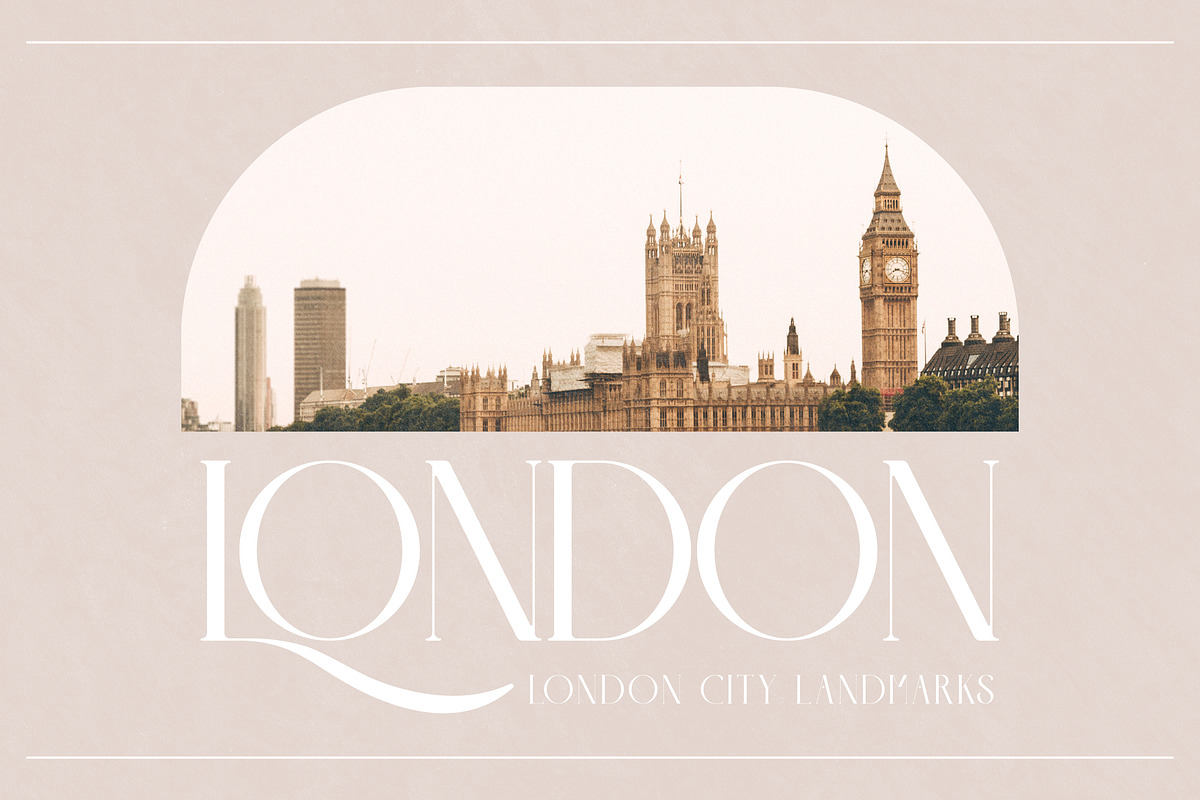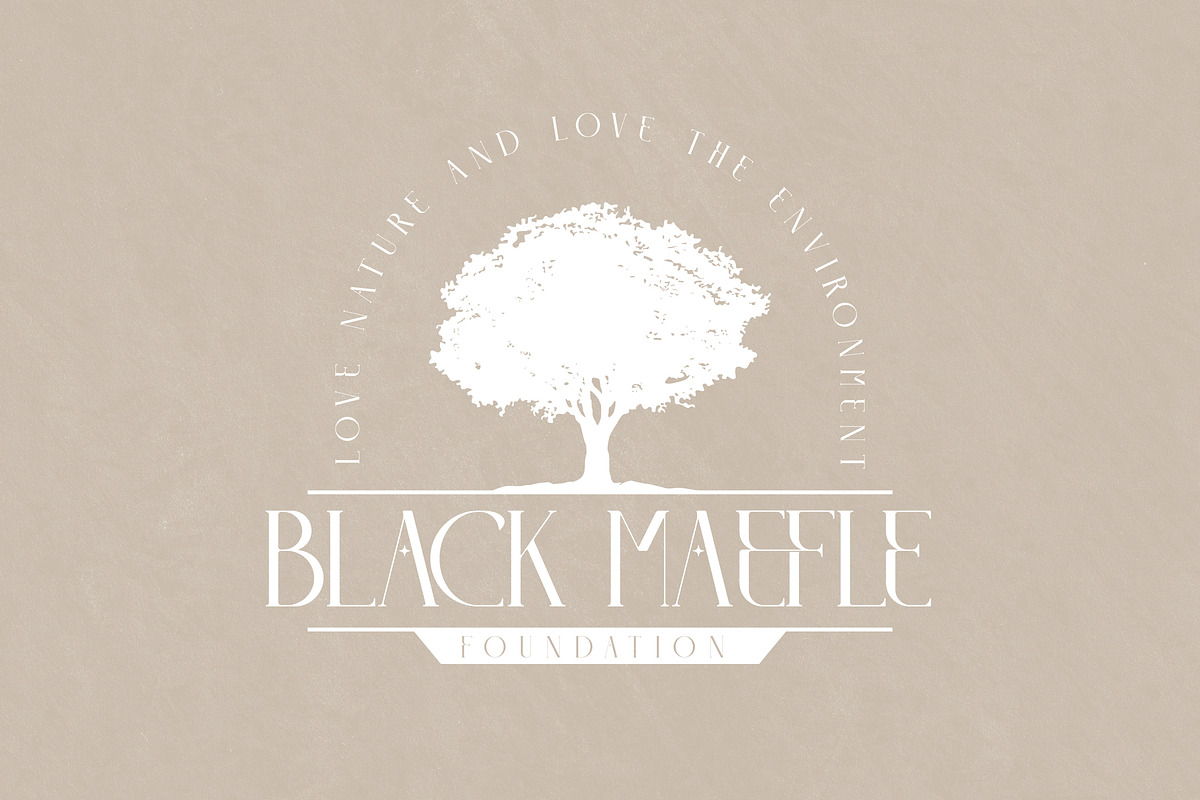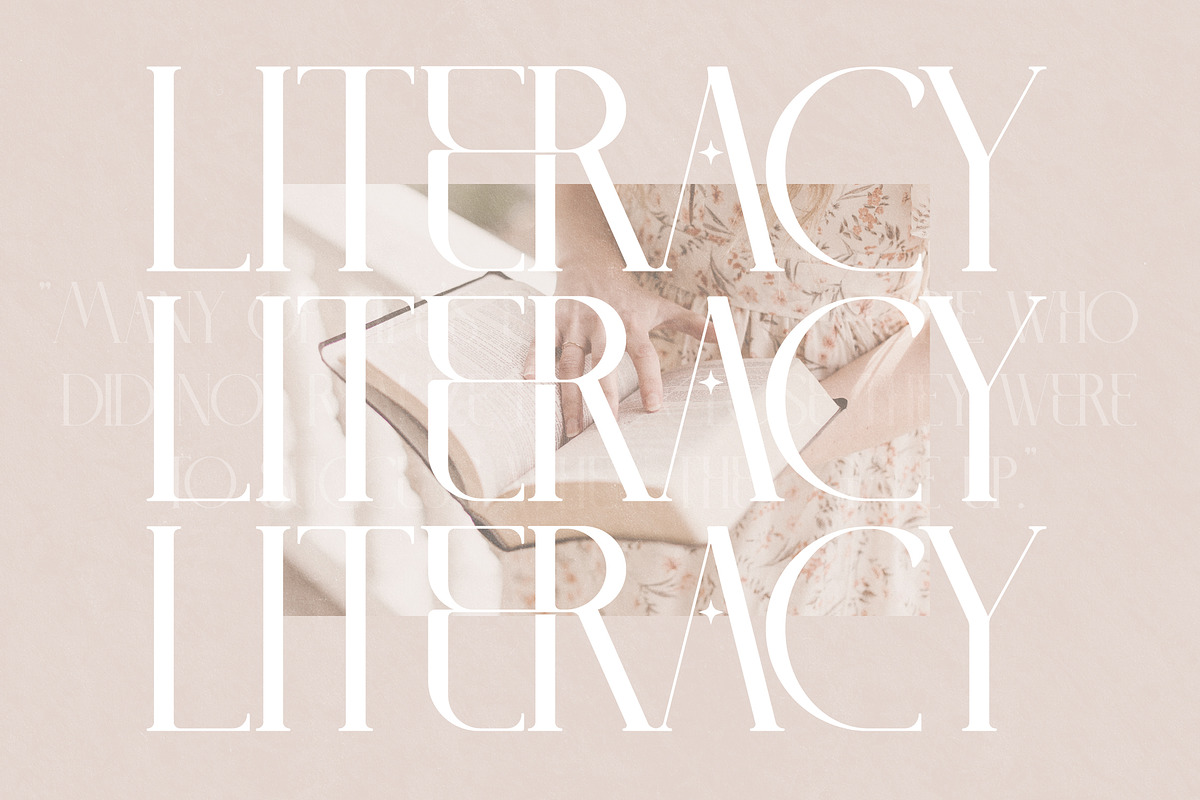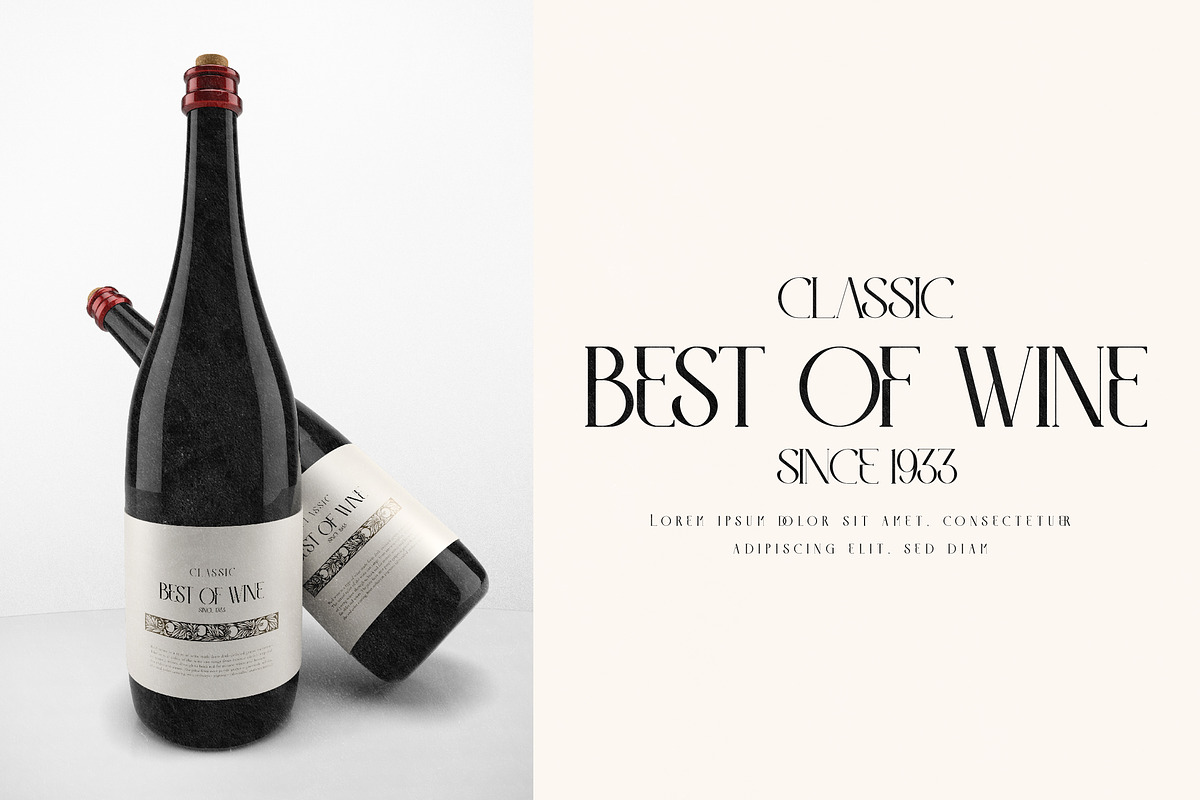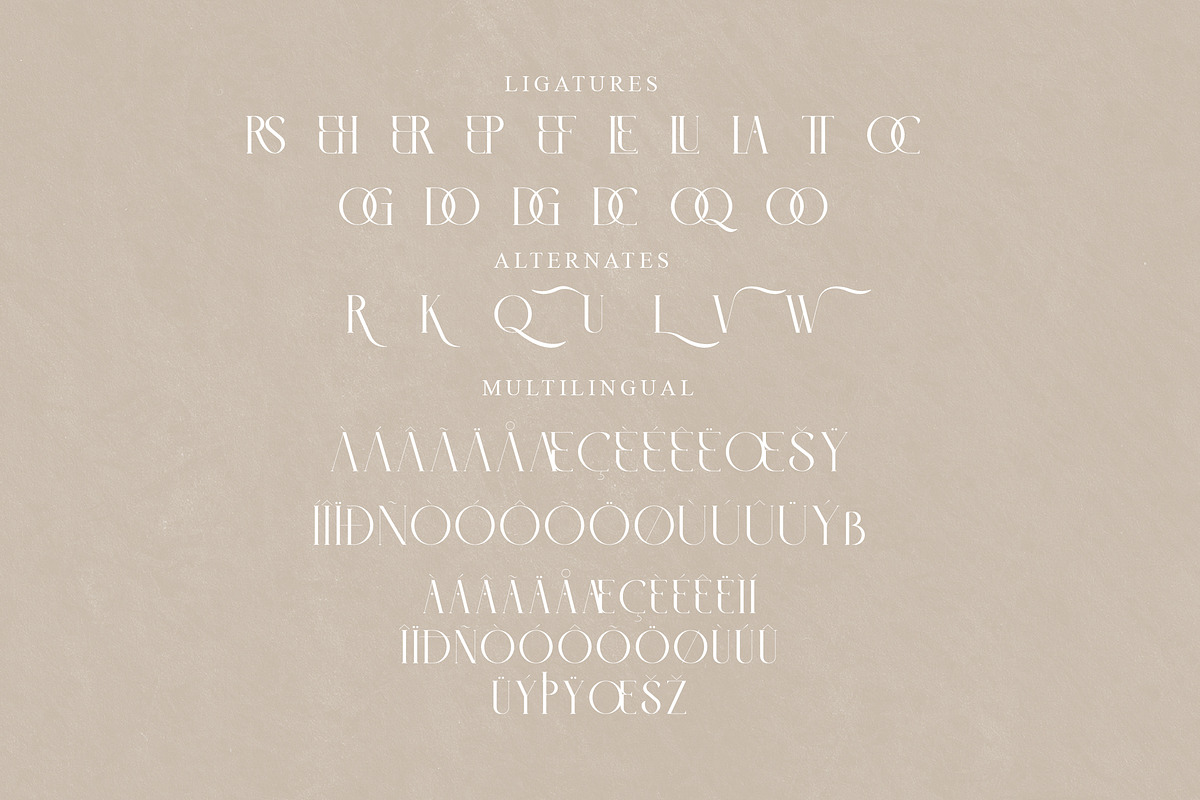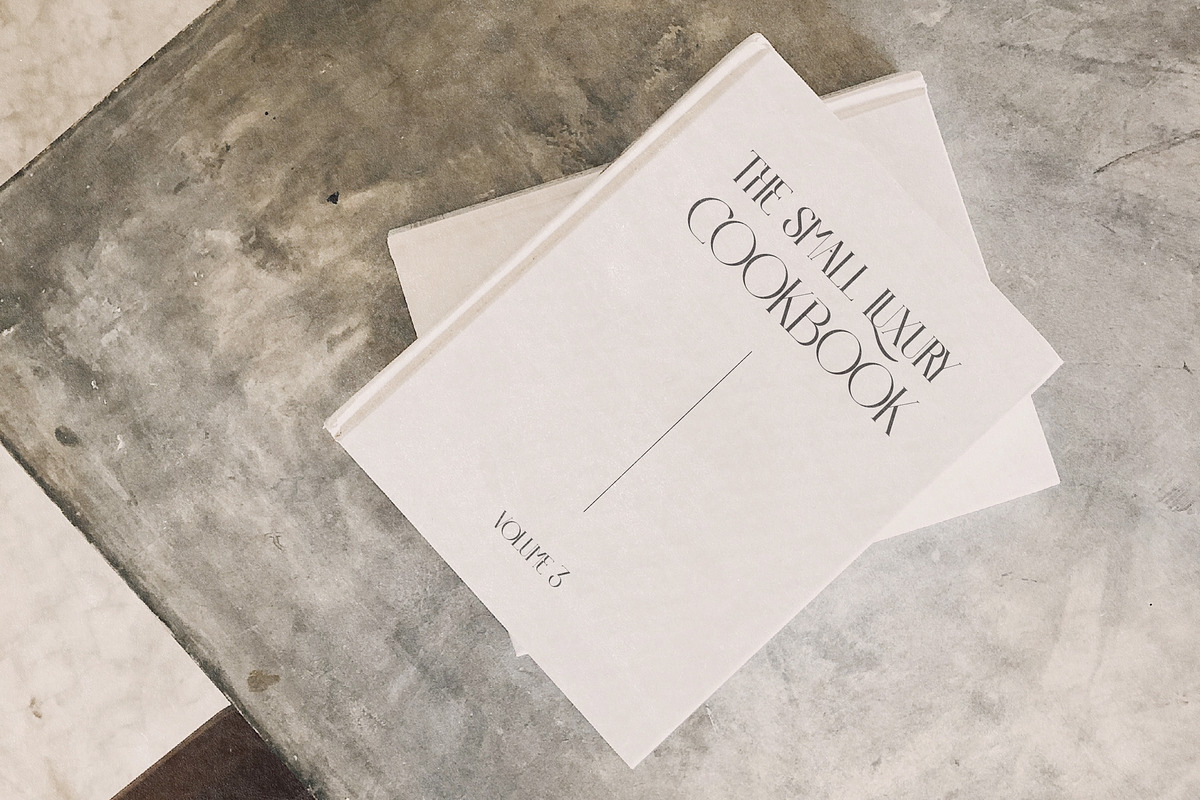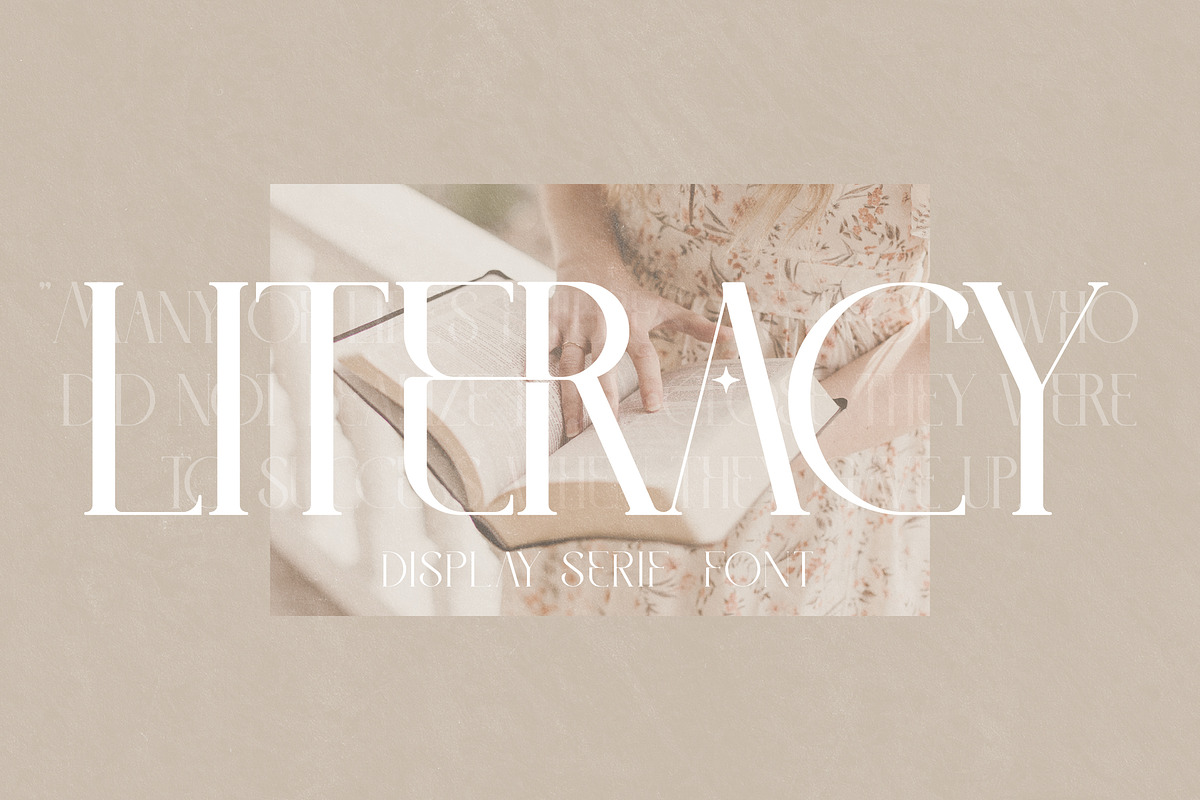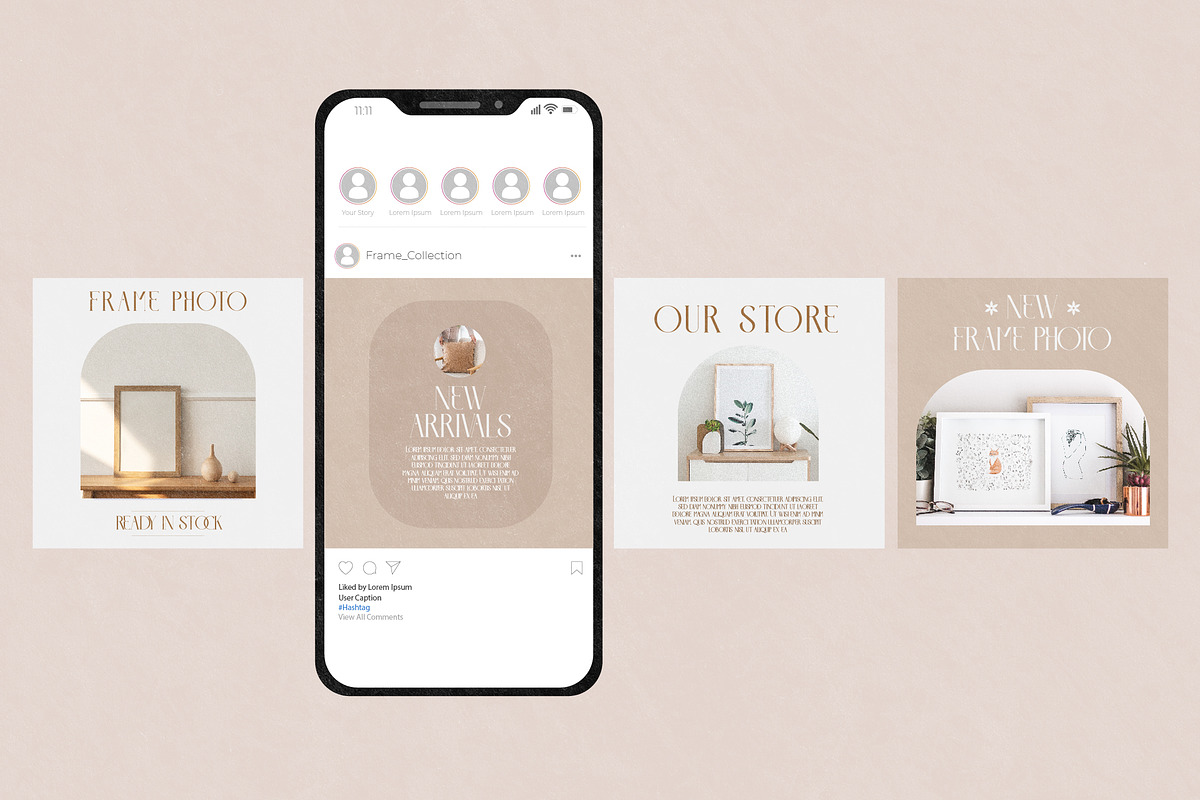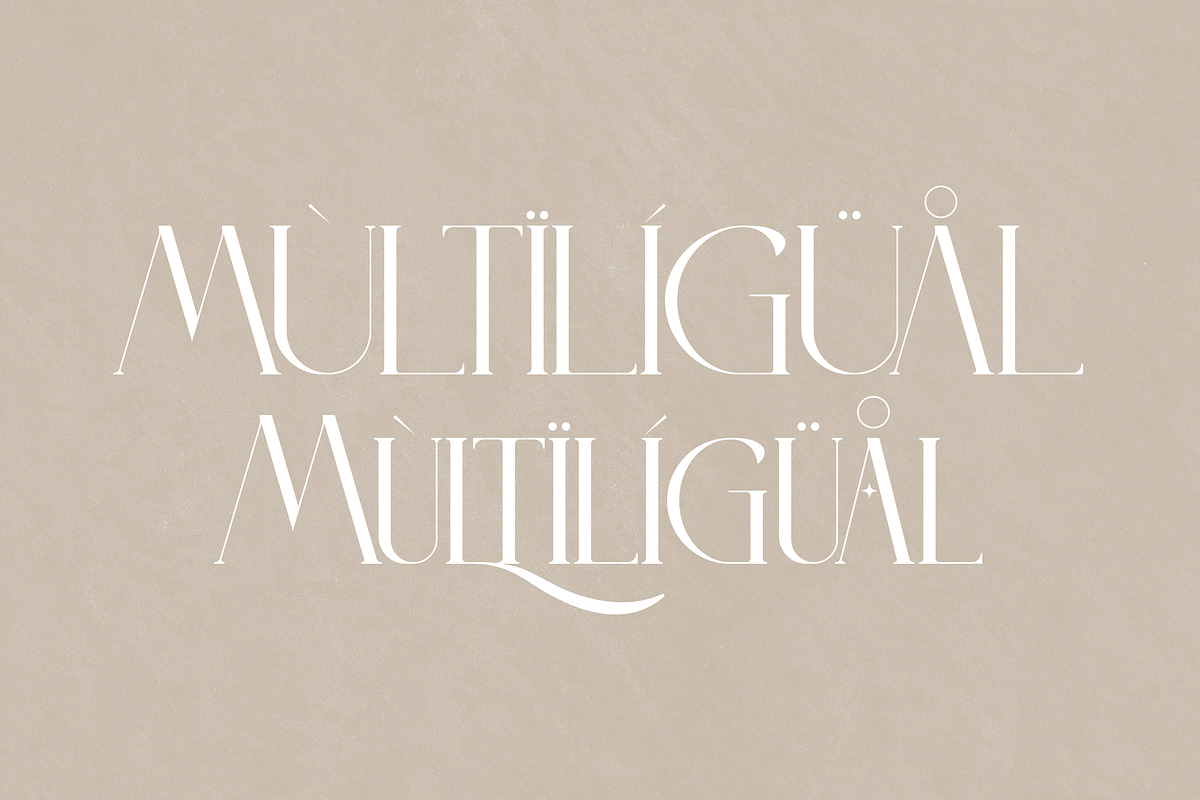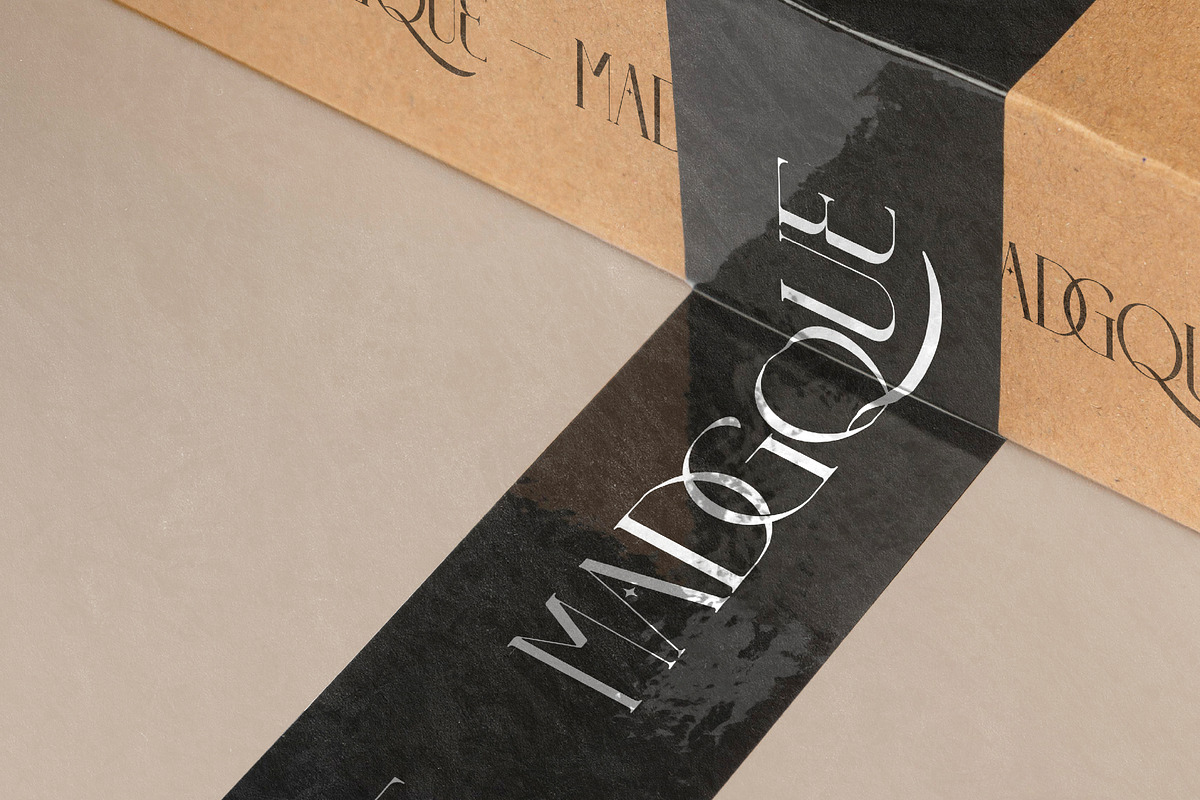
LITERACY Modern and Stylish Serif
Proudly present LITERACY Typeface, created by Storytype, A serif modern and classic typeface that has own unique style & modern look. This typeface is perfect for an elegant & luxury logo, book or movie title design, fashion brand, magazine, clothes, lettering, quotes, and so much more.